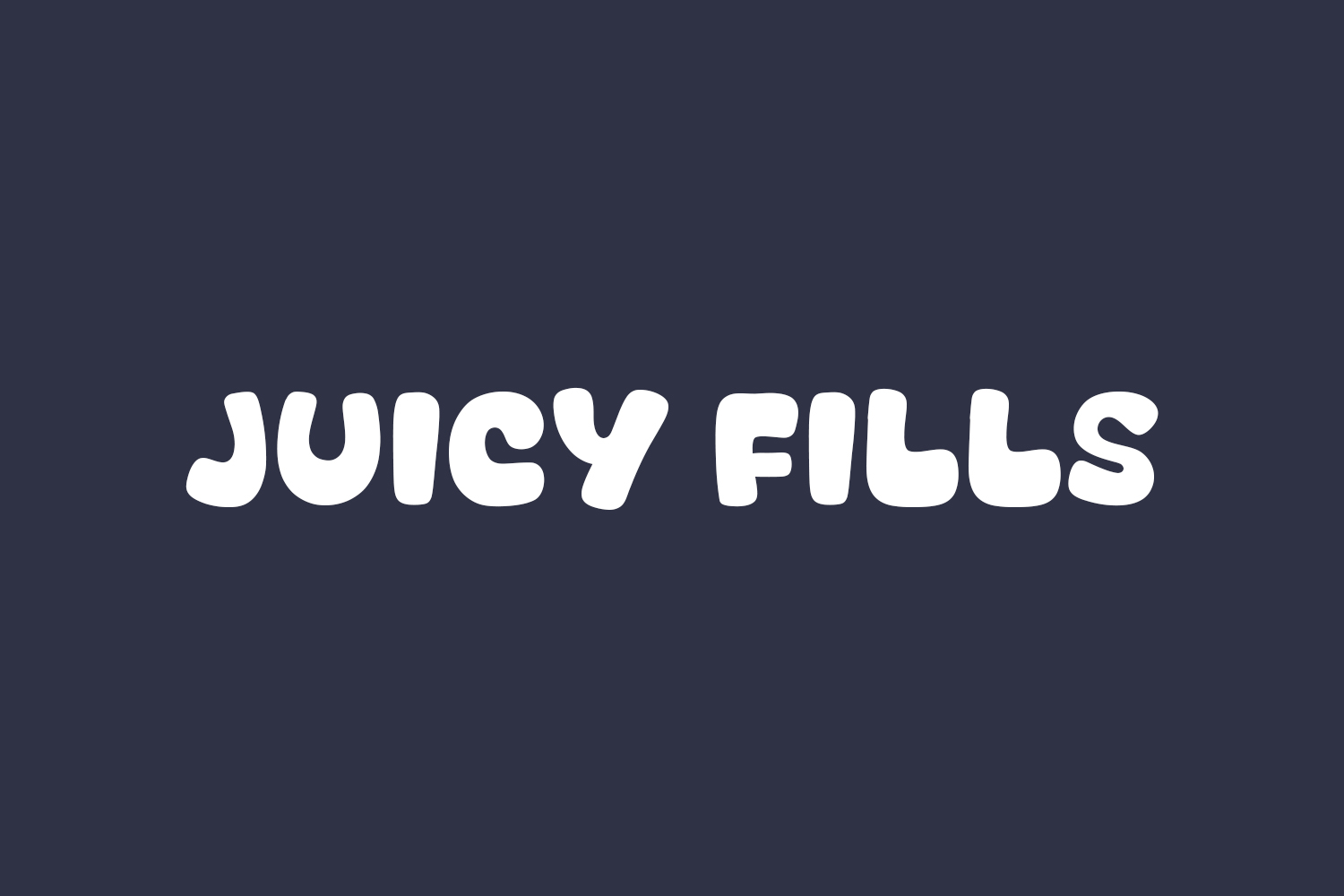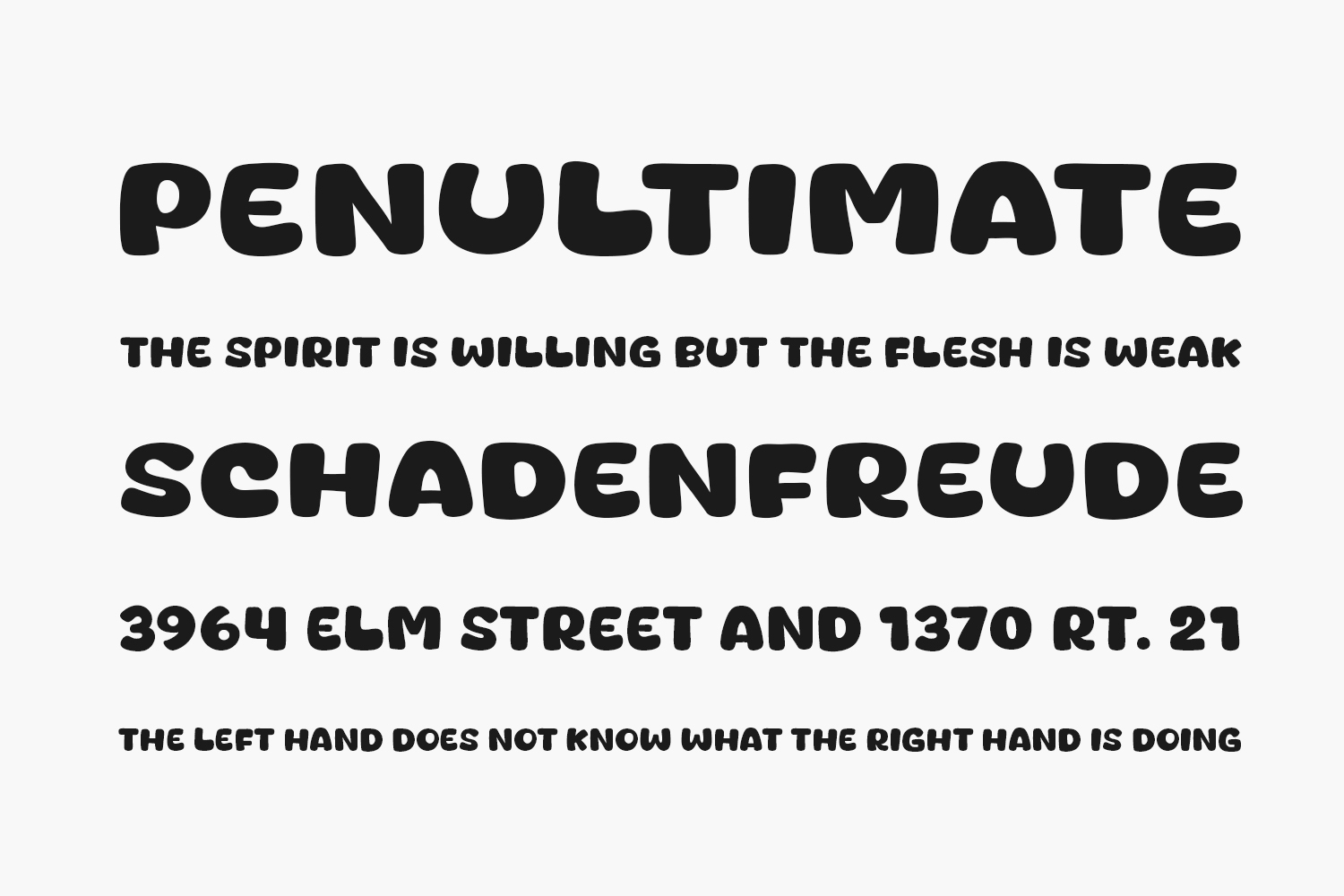
Juicy Fills is a charming and playful display font designed by Khurasan to bring warmth and creativity to your design projects. With its soft curves, rounded edges, and hand-drawn appearance, this free decorative typeface works perfectly for crafting adorable logos, greeting cards, social media graphics, children’s books, posters, and more. Available in TTF and OTF formats — ideal for designers seeking a cute, expressive font that instantly connects with young audiences or casual branding.
Why Choose Juicy Fills?
- Cute & Friendly Style: Rounded letterforms and playful strokes create a warm, lighthearted look perfect for kids’ visuals.
- Ideal for Kids’ Projects: Perfect for nursery décor, school materials, toy brands, or cartoon-style branding needing a fun tone.
Where to Use Juicy Fills?
Juicy Fills shines across a variety of creative applications:
- Logos & Branding: Adds warmth and personality to brand identities for daycare centers, baby stores, or lifestyle blogs needing a friendly tone.
- Kids’ Books & Illustrations: Perfect for story titles, character names, or illustrations that need a fun and approachable style.
- Greeting Cards: Brings joy to thank-you notes, birthday cards, or handmade gift tags.
- Packaging Design: Great for product labels on candies, mugs, notebooks, or baby items aimed at young audiences.
- Social Media Graphics: Creates bold text overlays for Instagram Stories, Pinterest pins, TikTok videos, and YouTube thumbnails.
Design Tips with Juicy Fills
To get the most from Juicy Fills, pair it with minimalist sans-serif fonts like Gerb or Canada for contrast and readability. Use this font at large sizes to highlight its expressive detailing and organic flow. For print work, apply vibrant backgrounds or subtle outlines to enhance its whimsical appeal. Try our interactive font preview tool below to test Juicy Fills with your own text before downloading!